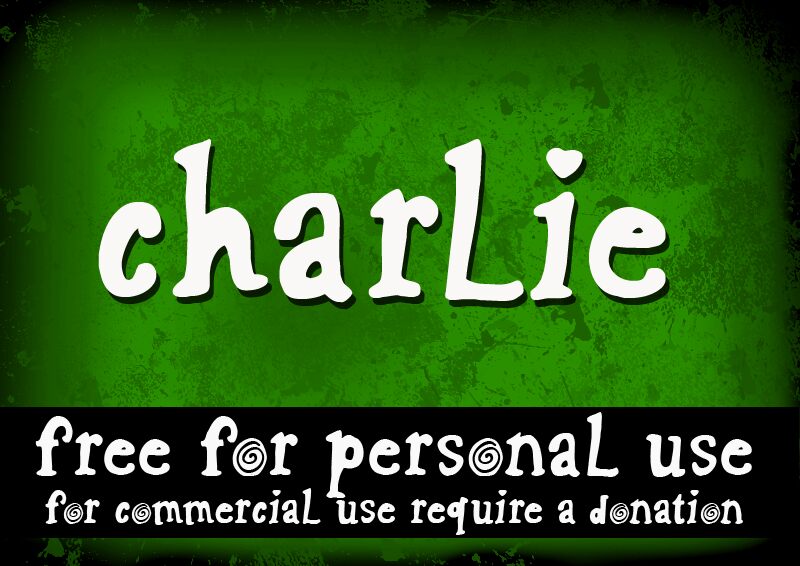
CF Charlie by CloutierFontes is a free comic display font with lopsided, springy letters, a deliberately uneven silhouette, and a lively mix of chunky filled and airy outlined forms. Curled tips keep the shapes lively and mischievous.
The lettering can turn a title into part of the illustration, especially on children's book covers, comedy posters, snack packaging, and cheerful game graphics. Its bouncing shapes and doodled details suit young audiences and lighthearted entertainment with the friendly unpredictability of homemade cartoon art.
CF Charlie Regular is a font by CloutierFontes, designed by Steve Cloutier in 2013.